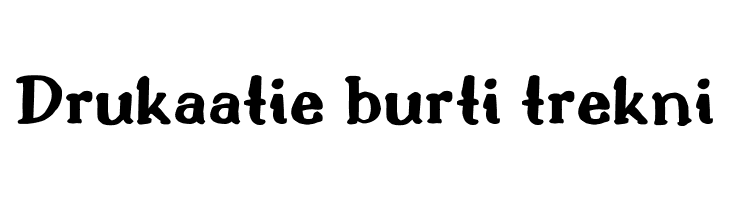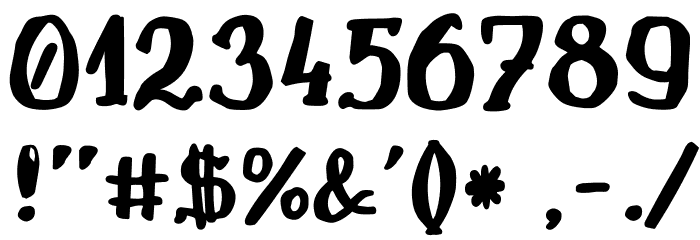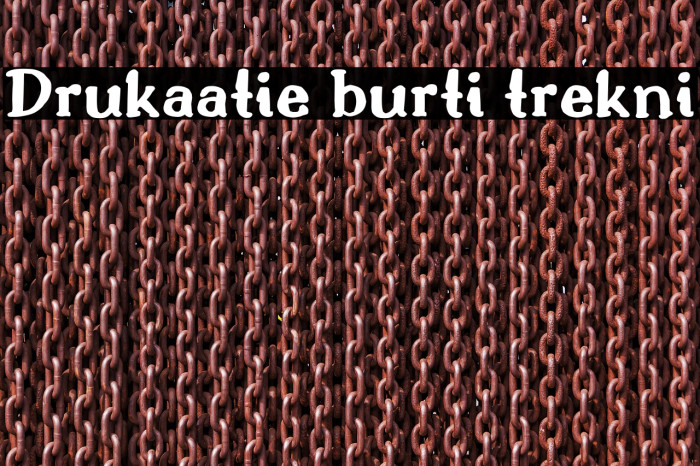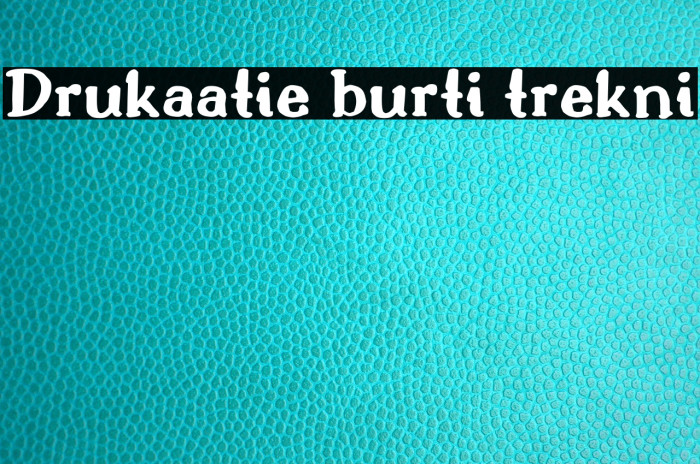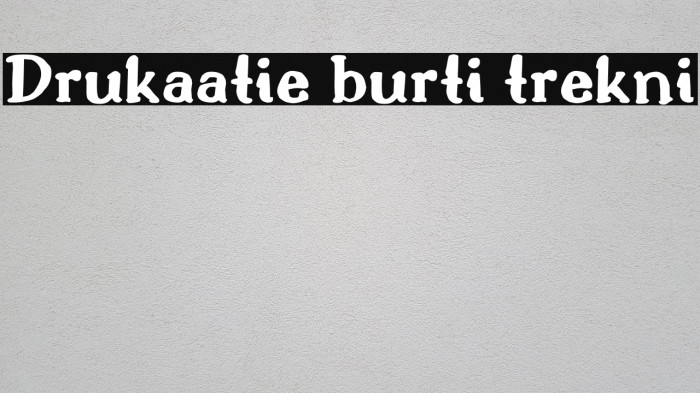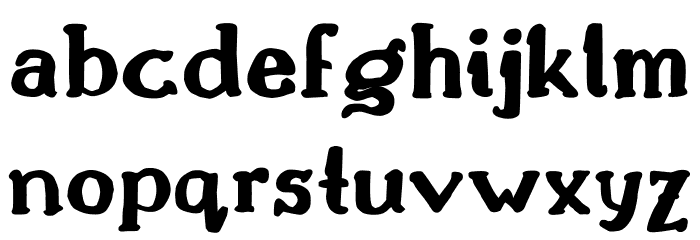
Drukaatie burti trekni Font
This font features a bold and playful design with a hand-drawn aesthetic. The characters are slightly irregular, giving it a whimsical and artistic feel. The strokes are thick and rounded, which adds to its boldness and makes it stand out. The uppercase and lowercase letters maintain a consistent style, with a slightly condensed appearance. The numbers and special characters follow the same playful and bold design, ensuring uniformity across all elements. This font is ideal for projects that require a fun and engaging look.
A bold, playful font with a hand-drawn, artistic style.
• Proposed Projects: Ideal for children's books, playful branding, posters, and creative projects that require a whimsical touch.
• Category: Handwritten
• Bold: Yes
• Italic: No
• Weight: Bold
• Width: Condensed
• Character Spacing: Normal
• Contrast: Low
• Overall Style: Playful, Artistic
• Use Case: Headlines, Logos, Posters